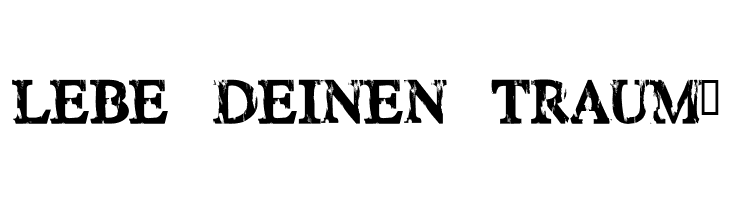
Message From bear Font
- Font: Message From bear
( Fonts by pOPdOG fONTS - Dimitris Kolyris - popdog_fonts.tripod.com Commercial Fonts Font )
A bold, distressed font with a vintage, grunge aesthetic.